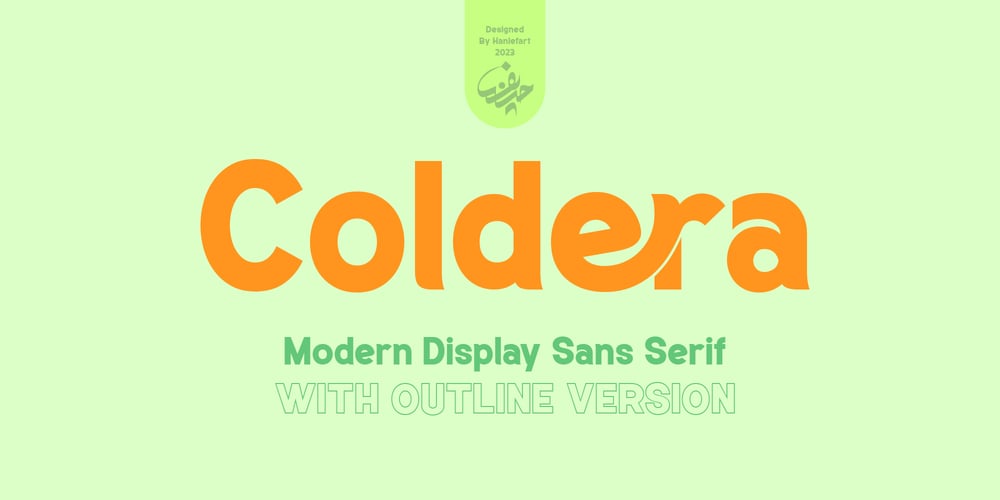
Coldera Font Family was designed by Hanif Maulazi and published by Haniefart. Coldera contains 2 styles and family package options. Coldera is a sans serif typeface deliberately modified to make it look beautiful, attractive and modern, available in uppercase, lowercase, ligature and alternative letters. Coldera is suitable for business brands, brochures, posters, magazines, comics, t-shirts, banners and many others.